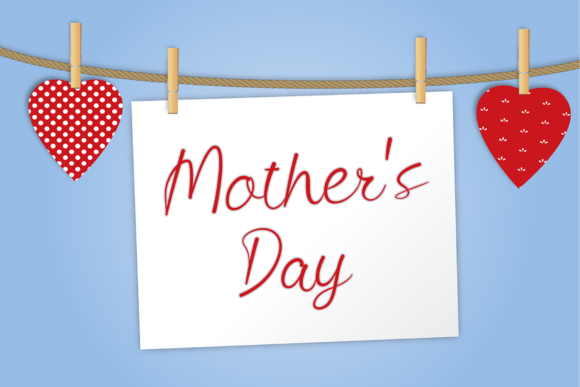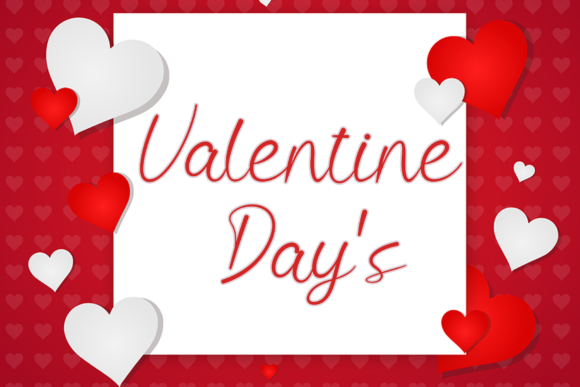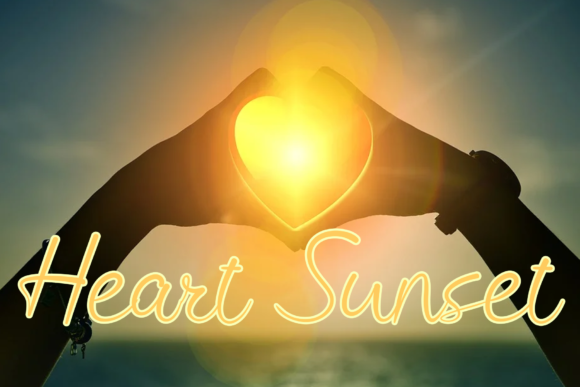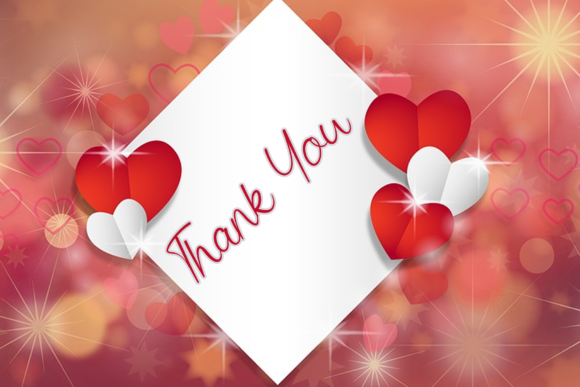
Introducing Happy Valentine Font: The Perfect Choice for Elegant Designs
Are you looking for a font that can add a touch of elegance and class to your designs? Look no further than Happy Valentine Font, a lovely and delicate script font that is sure to impress. In this article, we’ll take a closer look at this beautiful font and explore its features, benefits, and uses.
What is Happy Valentine Font?
Happy Valentine Font is a carefully crafted script font that is designed to bring a touch of sophistication and refinement to your designs. With its delicate lines and elegant curves, this font is perfect for creating beautiful and eye-catching text that will leave a lasting impression.
Features of Happy Valentine Font
So, what makes Happy Valentine Font so special? Here are just a few of its key features:
- Delicate and elegant design: Happy Valentine Font features a beautiful, cursive script design that is both delicate and elegant.
- Perfect for romantic designs: With its lovely and feminine feel, this font is perfect for creating romantic designs, such as Valentine’s Day cards, wedding invitations, and more.
- High-quality and versatile: Happy Valentine Font is a high-quality font that can be used for a wide range of design projects, from digital graphics to print materials.
- Easy to read: Despite its delicate design, Happy Valentine Font is easy to read, making it perfect for use in body text as well as headlines.
Benefits of Using Happy Valentine Font
So, why should you choose Happy Valentine Font for your designs? Here are just a few of the benefits of using this lovely font:
- Adds elegance and sophistication: Happy Valentine Font can add a touch of elegance and sophistication to your designs, making them stand out from the crowd.
- Perfect for special occasions: With its romantic and feminine feel, this font is perfect for creating designs for special occasions, such as Valentine’s Day, weddings, and anniversaries.
- Versatile and flexible: Happy Valentine Font can be used for a wide range of design projects, from digital graphics to print materials, making it a versatile and flexible choice.
Uses of Happy Valentine Font
So, what can you use Happy Valentine Font for? Here are just a few ideas:
- Valentine’s Day designs: This font is perfect for creating Valentine’s Day cards, invitations, and other designs.
- Wedding designs: With its romantic and elegant feel, Happy Valentine Font is a great choice for creating wedding invitations, programs, and other designs.
- Digital graphics: This font can be used to create beautiful digital graphics, such as social media posts, blog headers, and more.
- Print materials: Happy Valentine Font can also be used for print materials, such as brochures, flyers, and business cards.
Tips for Using Happy Valentine Font
Here are a few tips for using Happy Valentine Font in your designs:
- Use it sparingly: While Happy Valentine Font is beautiful, it can be overwhelming if used too much. Use it sparingly to add a touch of elegance to your designs.
- Pair it with other fonts: This font pairs well with other fonts, such as sans-serif fonts. Experiment with different pairings to find the one that works best for your design.
- Adjust the size and color: Experiment with different sizes and colors to find the one that works best for your design.
In conclusion, Happy Valentine Font is a beautiful and elegant script font that is perfect for adding a touch of sophistication and refinement to your designs. With its delicate lines and elegant curves, this font is sure to impress. Whether you’re creating designs for Valentine’s Day, weddings, or other special occasions, Happy Valentine Font is a great choice. So why not give it a try and see the difference it can make in your designs?